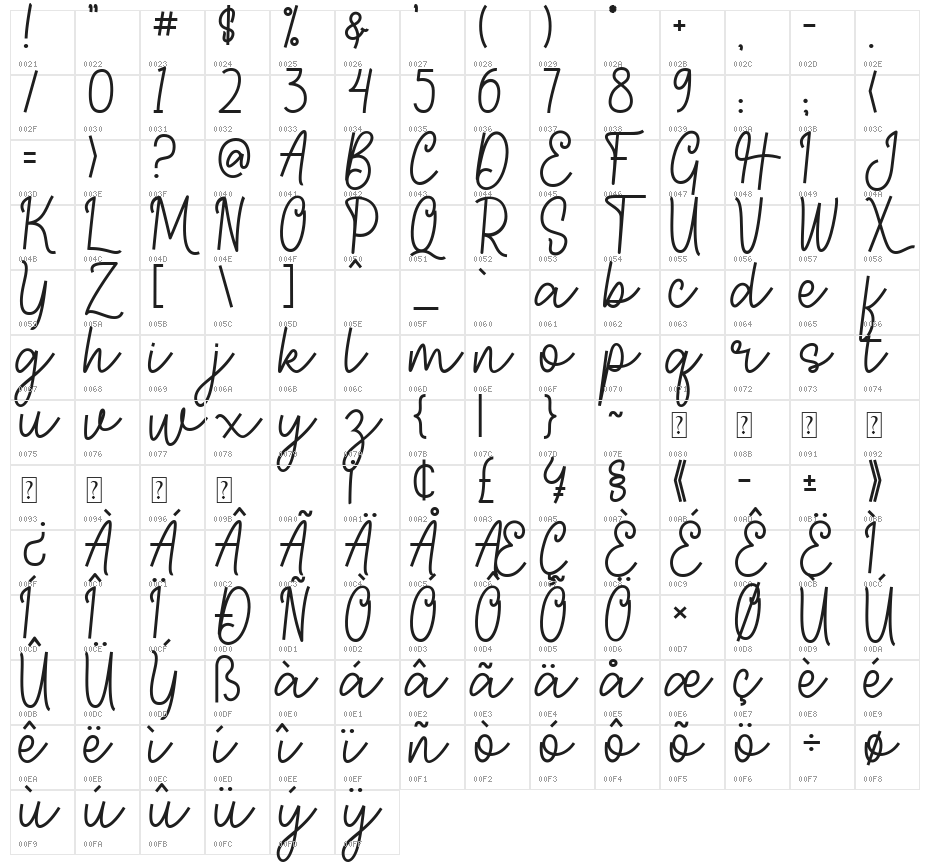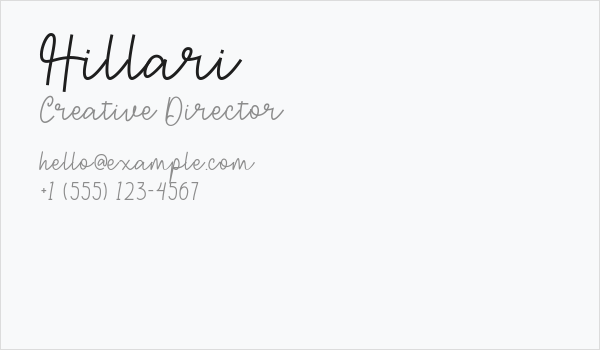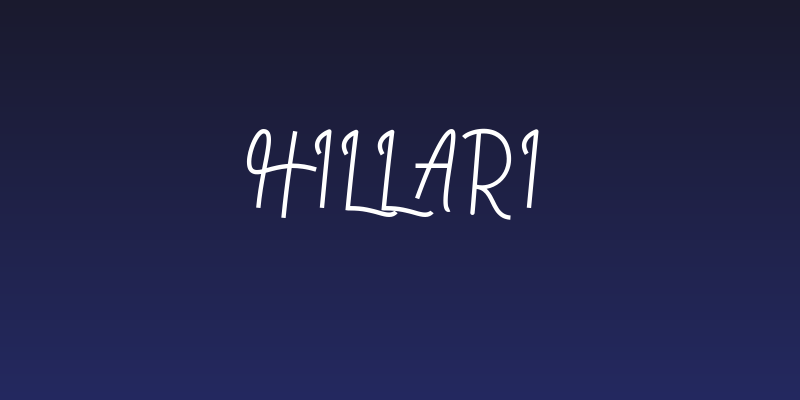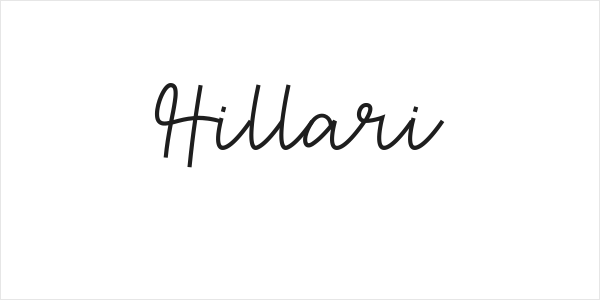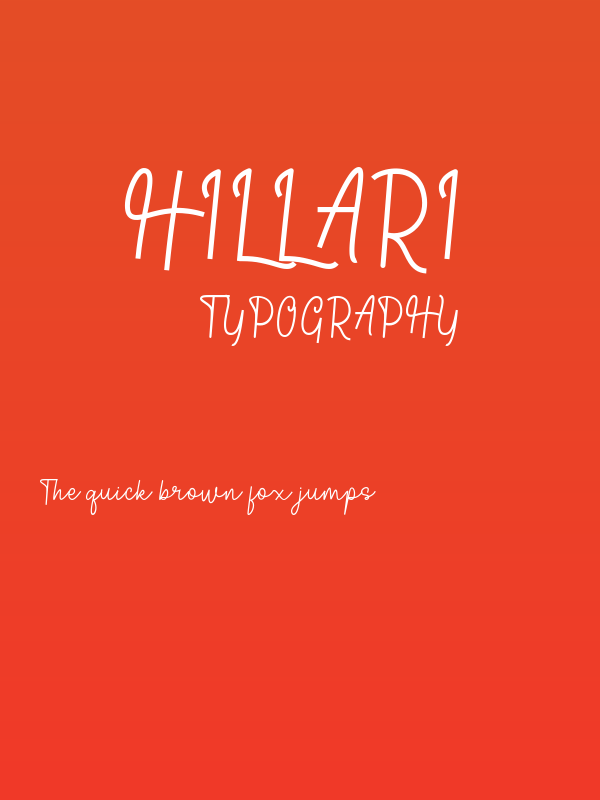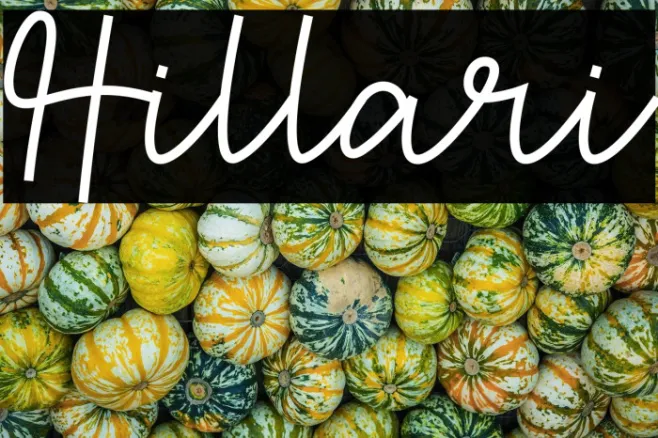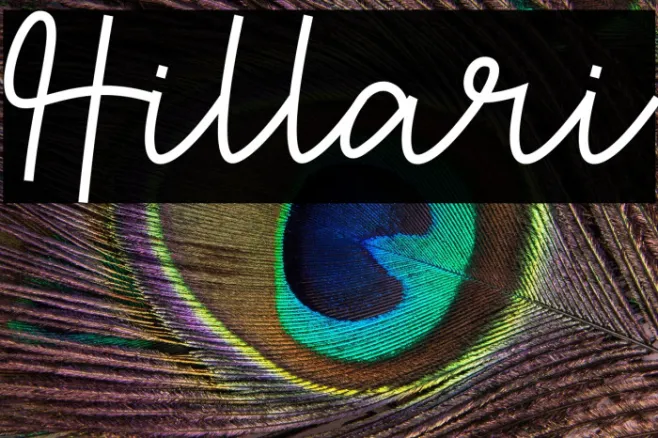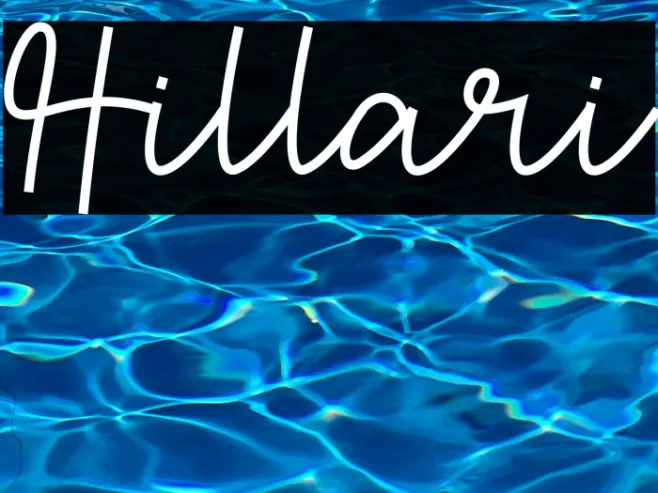
Hillari Font
Hillari Description
This font features a playful and casual handwritten style, characterized by its flowing and connected script. The uppercase letters are slightly more structured, maintaining a balance between elegance and informality. The lowercase letters are more fluid, with a natural and organic feel, enhancing the handwritten aesthetic. The numerals are clear and easy to read, complementing the overall style. Special characters are well-integrated, maintaining the font's cohesive look. The font's design is versatile, suitable for various creative projects that require a personal touch.
| Use Case | Logos, Invitations, Social Media |
| Proposed Projects | Ideal for greeting cards, invitations, personal branding, and social media graphics. |